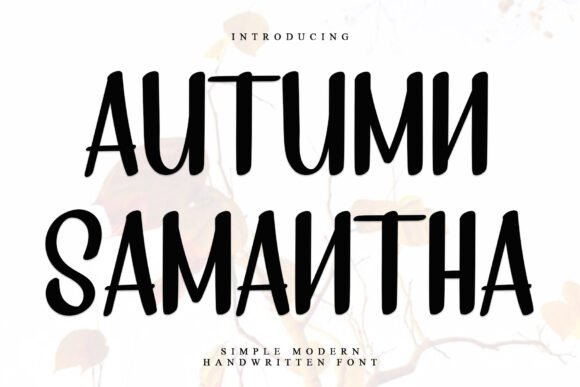
Introducing Autumn Samantha Font: The Perfect Blend of Style and Playfulness
Are you looking for a font that can add a touch of modernity and fun to your creative projects? Look no further than the Autumn Samantha font. This stylish display font is designed to combine clean lines with a playful touch, making it perfect for headlines, posters, and a wide range of creative projects.
What is Autumn Samantha Font?
Autumn Samantha font is a contemporary display font that is designed to be easy to read and visually appealing. The font features clean lines and a playful touch, making it perfect for use in a variety of creative projects. Whether you’re looking to create a bold headline, a fun poster, or a stylish logo, Autumn Samantha font is the perfect choice.
Key Features of Autumn Samantha Font
So, what makes Autumn Samantha font so special? Here are just a few of the key features that set it apart:
- Clean Lines: The font features clean lines that give it a modern and sleek look.
- Playful Touch: The font also has a playful touch that makes it perfect for use in creative projects.
- Easy to Read: The font is designed to be easy to read, making it perfect for use in headlines and other display text.
- Versatile: The font is versatile and can be used in a wide range of creative projects, from posters and logos to websites and social media graphics.
Who is Autumn Samantha Font Suitable For?
Autumn Samantha font is suitable for a wide range of users, including:
- Graphic Designers: Graphic designers will love the font’s versatility and ease of use.
- Marketeers: Marketers will appreciate the font’s modern and sleek look, which is perfect for creating eye-catching headlines and display text.
- Small Business Owners: Small business owners can use the font to create professional-looking marketing materials, such as brochures and flyers.
- Artists and Crafters: Artists and crafters can use the font to add a touch of personality to their creative projects.
How to Use Autumn Samantha Font
Using Autumn Samantha font is easy. Here are a few tips to get you started:
- Use it for Headlines: The font is perfect for use in headlines, where its clean lines and playful touch can really make an impact.
- Add it to Posters: The font is also great for use in posters, where its bold and eye-catching design can help grab attention.
- Use it in Logos: The font can also be used in logos, where its modern and sleek look can help create a professional image.
- Experiment with Colors: Don’t be afraid to experiment with different colors and textures to really make the font pop.
Benefits of Using Autumn Samantha Font
So, what are the benefits of using Autumn Samantha font? Here are just a few:
- Modern and Sleek Look: The font’s modern and sleek look is perfect for creating a professional image.
- Easy to Read: The font is easy to read, making it perfect for use in headlines and other display text.
- Versatile: The font is versatile and can be used in a wide range of creative projects.
- Fun and Playful: The font’s playful touch makes it perfect for use in creative projects where you want to add a touch of personality.
In conclusion, Autumn Samantha font is a stylish display font that combines clean lines with a playful touch. It’s easy to read and perfect for use in headlines, posters, and a wide range of creative projects. The font’s modern and sleek look makes it perfect for creating a professional image, while its playful touch adds a touch of personality to any project. Whether you’re a graphic designer, marketer, small business owner, or artist, Autumn Samantha font is a great choice.